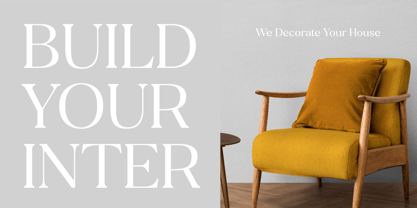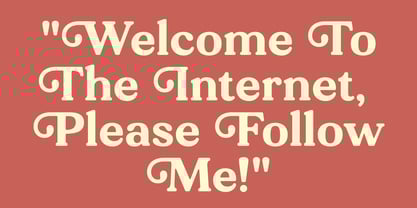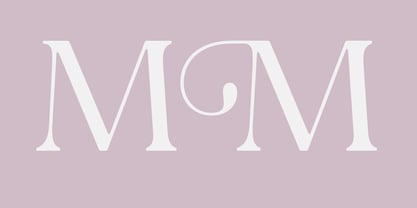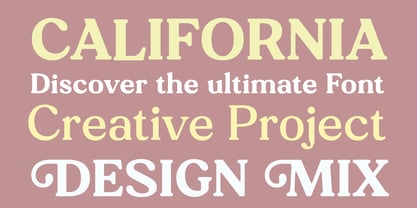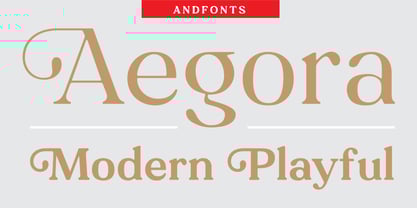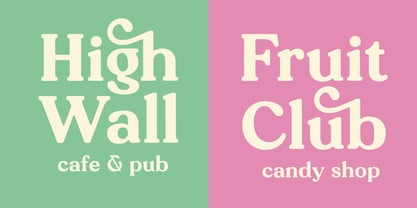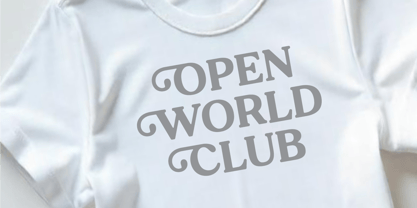
Aegora
by Andfonts
The Aegora Font Family was designed by Andrii Shevchyk and published by Andfonts. Aegora contains 10 styles.
Aegora is a expressive serif font that blends modern elegance with funky, playful energy. Designed to turn heads and add personality, Aegora features stylish alternates and unique letterforms that bring a fresh twist to traditional serif design.